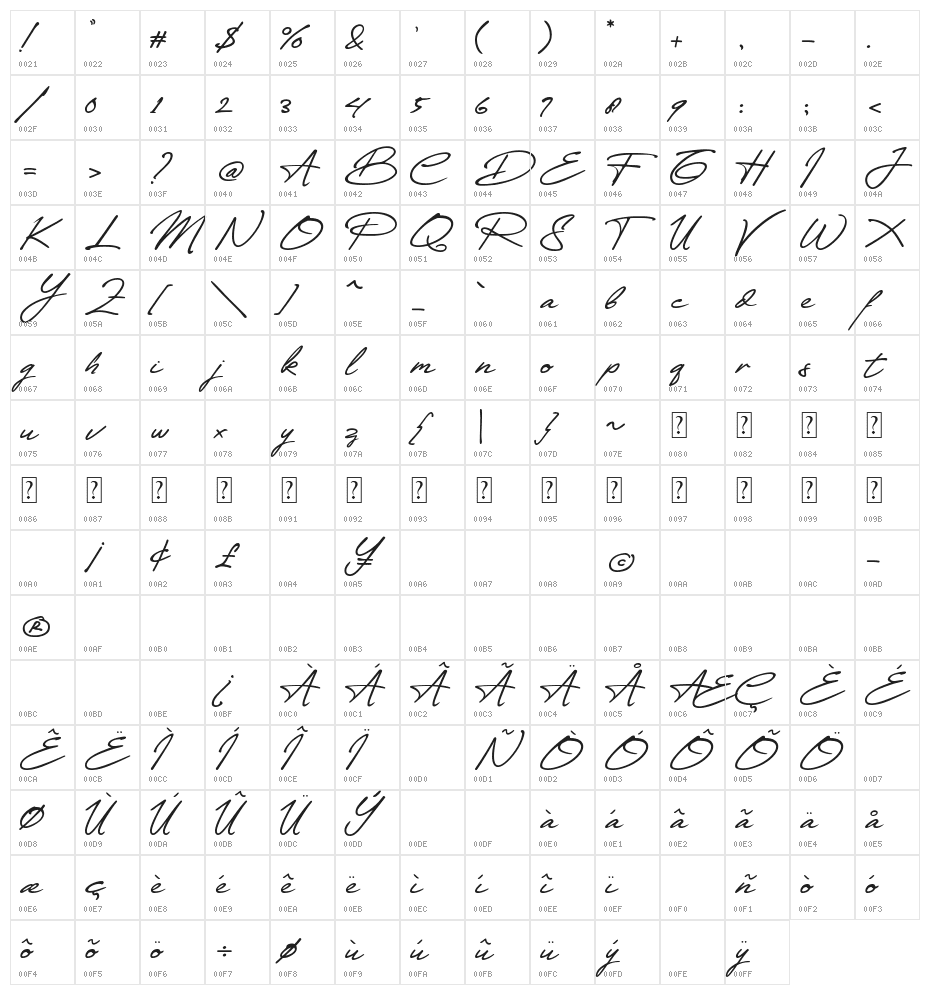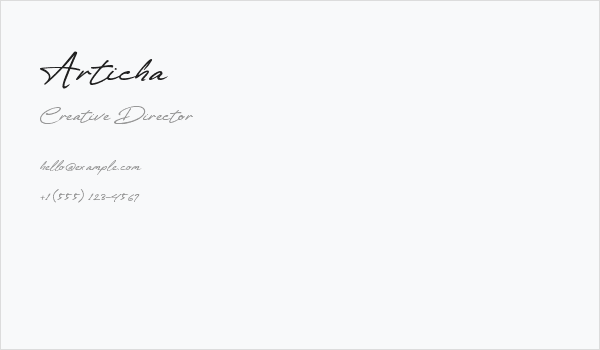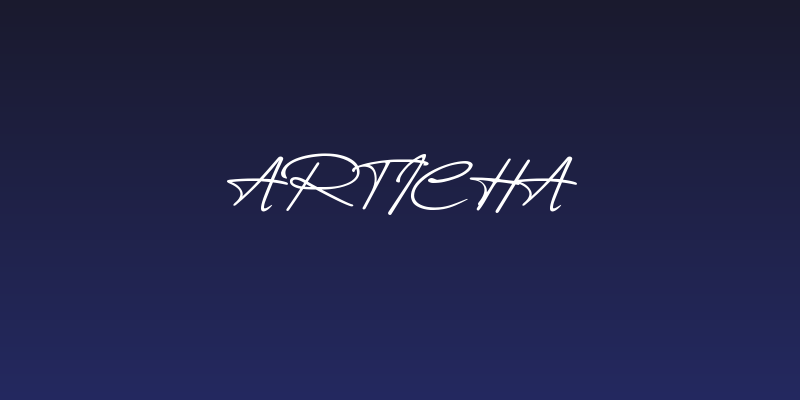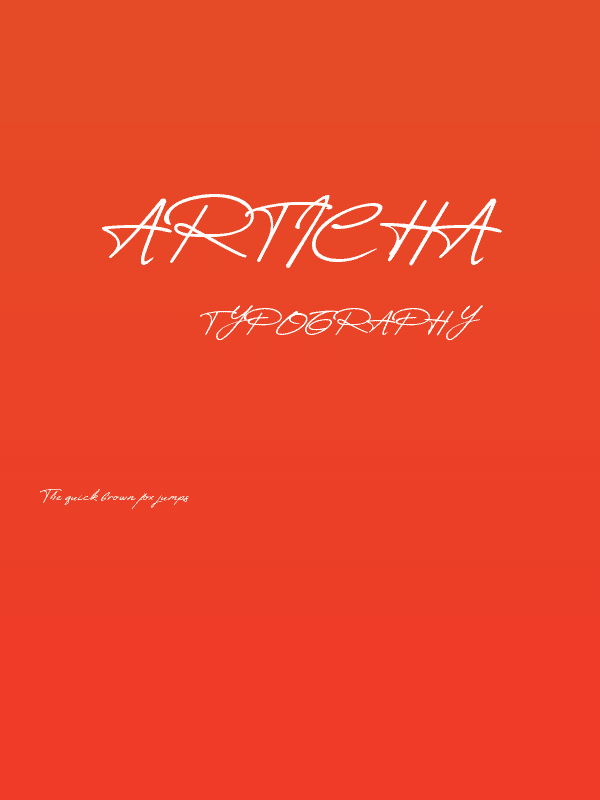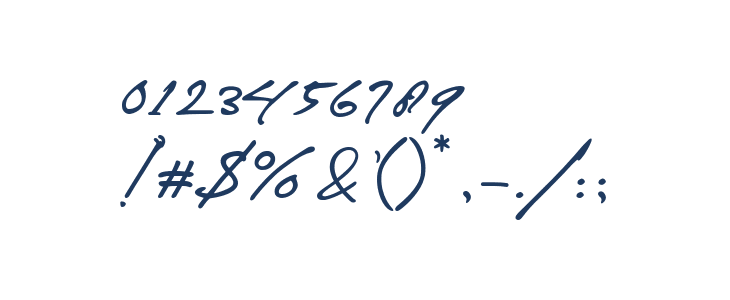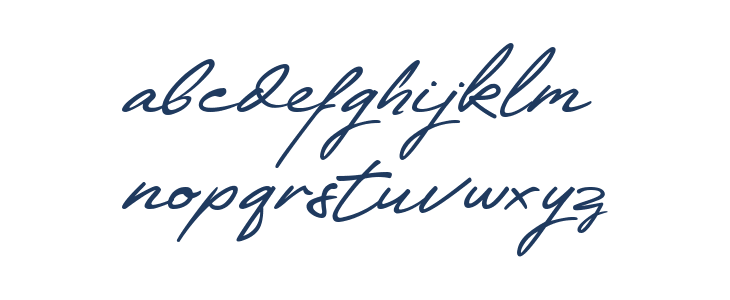
Articha Font
Articha Description
This font features an elegant and flowing script style, characterized by its cursive and handwritten appearance. The letters are connected, creating a seamless and fluid look that mimics natural handwriting. The uppercase letters are slightly more ornate, with flourishes that add a touch of sophistication. The lowercase letters maintain a consistent style, with smooth curves and loops. The numerals and special characters are designed to match the overall aesthetic, ensuring a cohesive look across all text. This font is ideal for projects that require a personal and artistic touch.
| Overall Style | Elegant, Artistic |
| Proposed Projects | Ideal for wedding invitations, greeting cards, personal branding, and artistic projects. |